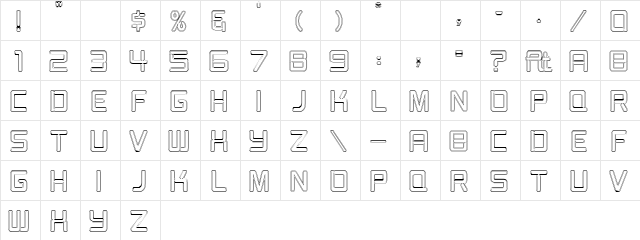
Burger Joint Neon Contour JL Regular Font Preview
Burger Joint Neon Contour JL Regular
Burger Joint Neon Contour JL Regular Font Details
Design Context for Burger Joint Neon Contour JL Typeface
Burger Joint Neon Contour JL has a distinctly futuristic character, with geometric precision and clean angles that feel at home in technology, gaming, and sci-fi contexts.